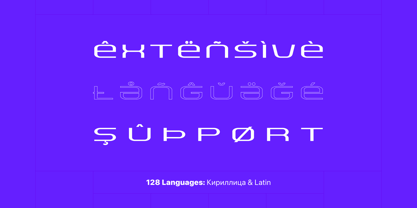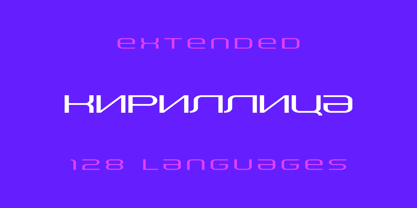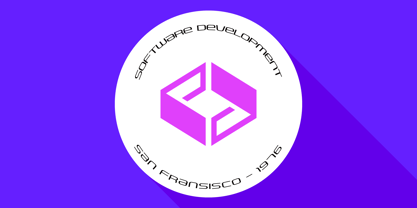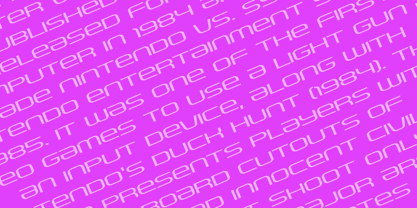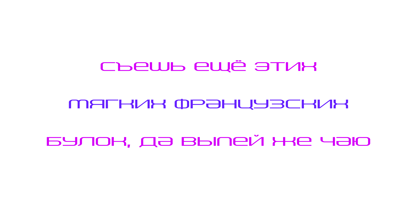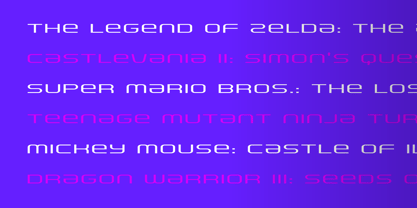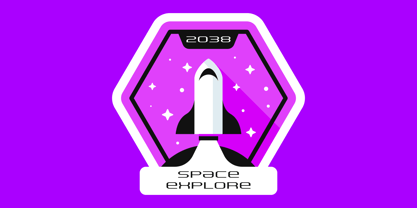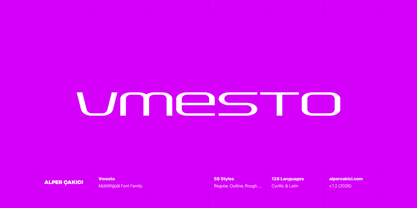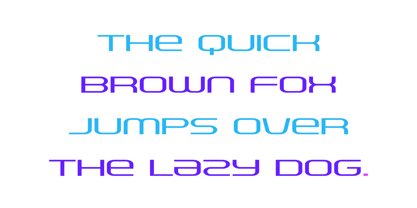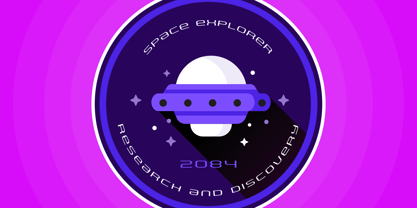
Vmesto
The Vmesto Font Family was designed by Alper Çakıcı and published by AlperCakici. Vmesto contains 58 styles and family package options. More about this family
Vmesto is a futuristic, slim yet wide display typeface built for bold visual impact. Balancing sharp geometry with fluid variations, it offers an extensive system of 58 styles ranging from clean and minimal to expressive and textured. With Angular, Circular, Rounded, Brush, Pencil, Outline, Inline, Rimmed, Rough, Noise, and Eroded interpretations—each paired with italics—Vmesto delivers unmatched flexibility for modern design needs. Its wide stance and sleek proportions make it ideal for headlines, branding, posters, UI, sci-fi themes, and experimental layouts. Whether you need precision or personality, Vmesto adapts effortlessly. Supporting both Latin and Cyrillic scripts, Vmesto ensures broad multilingual coverage, making it a powerful choice for global projects. The cohesive yet diverse style family allows designers to mix and match aesthetics while maintaining a unified voice. Vmesto is not just a typeface—it’s a complete visual toolkit for futuristic and contemporary typography.